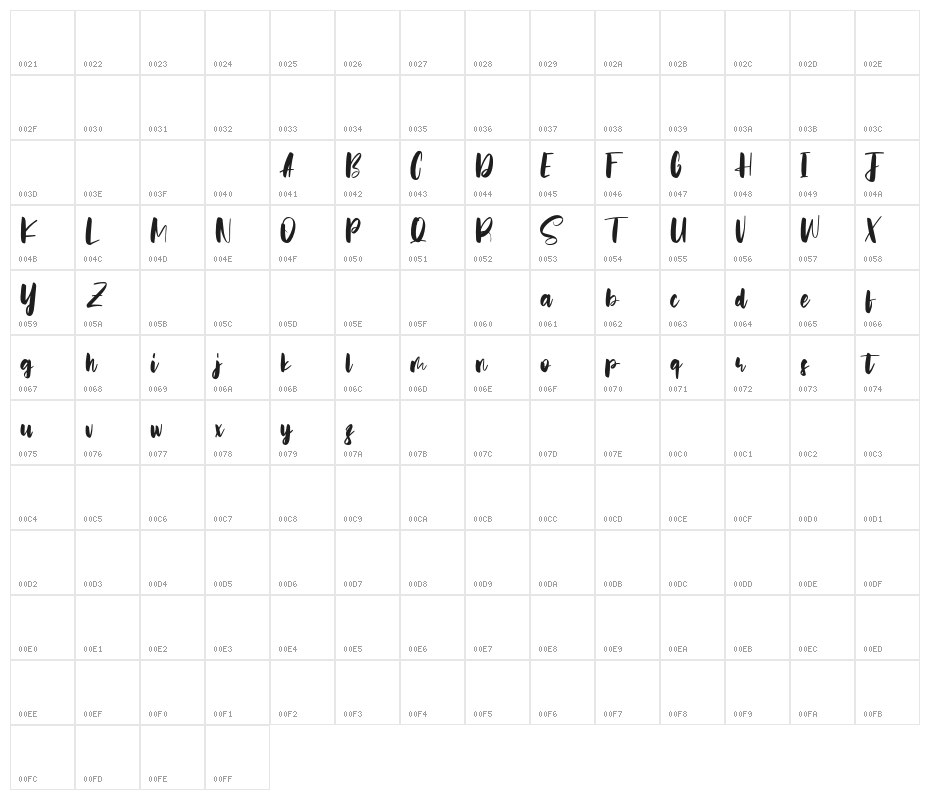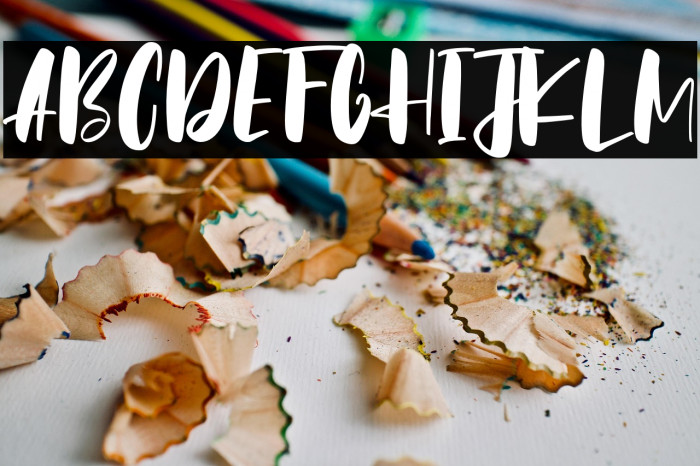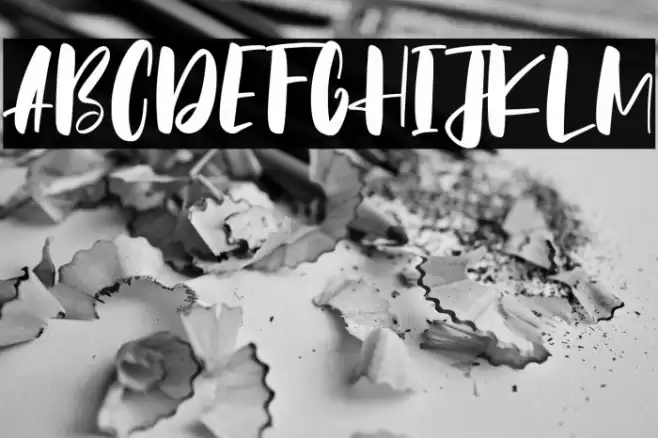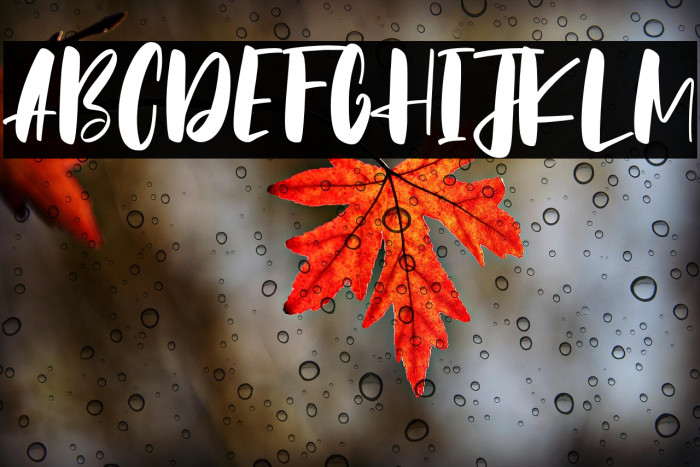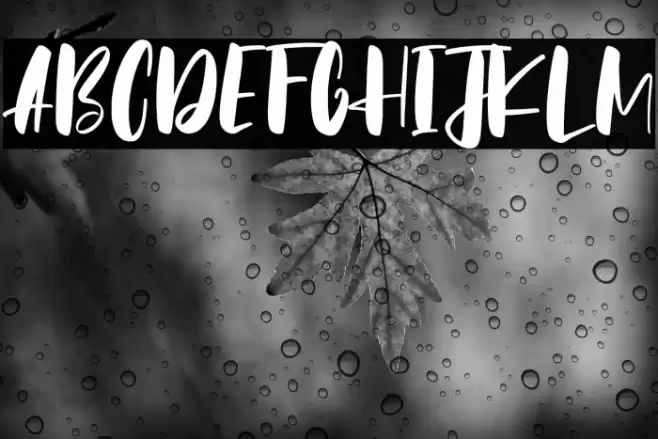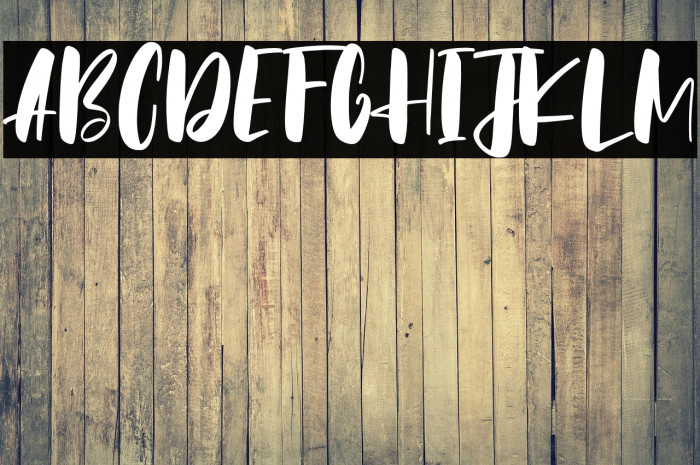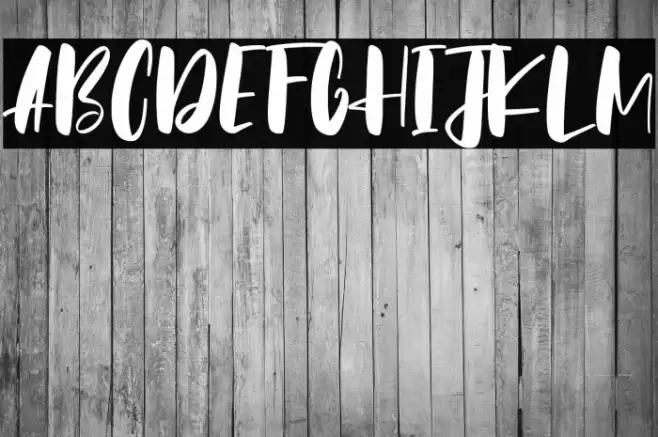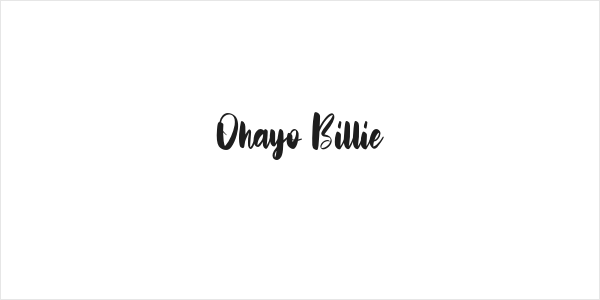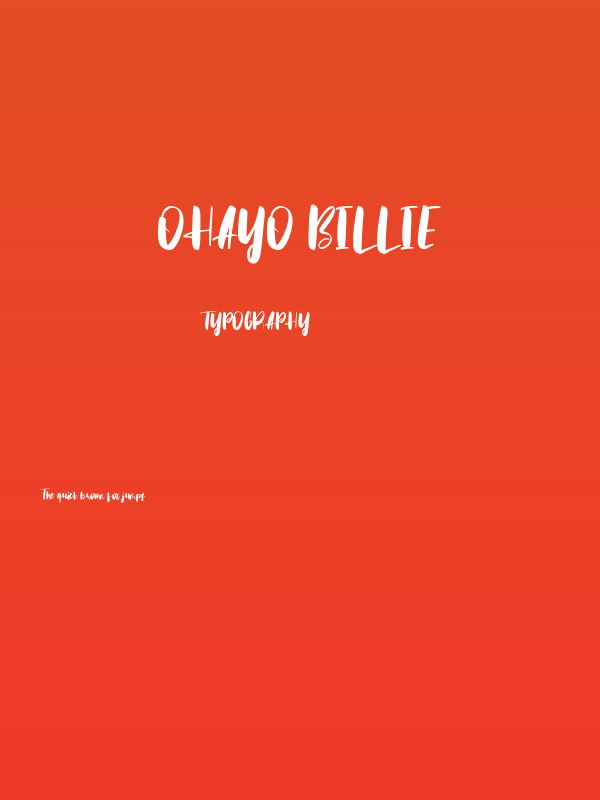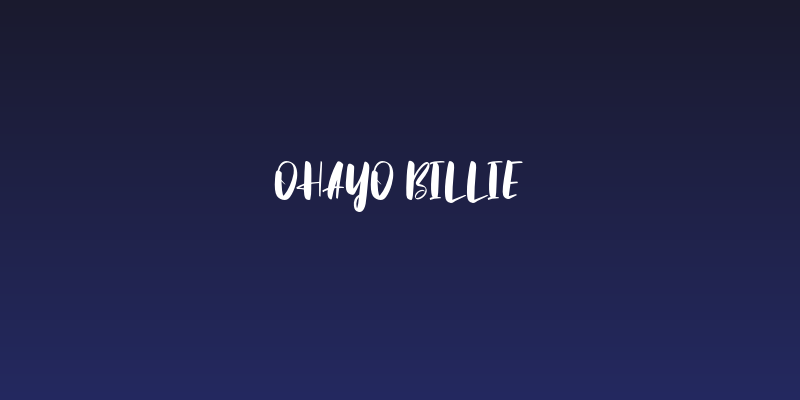
Ohayo Billie Font
Ohayo Billie Description
This font features a bold and expressive script style, characterized by its fluid and dynamic strokes. The uppercase letters are particularly striking, with a playful and energetic flair that adds a sense of movement to the text. The lowercase letters maintain this lively aesthetic, offering a harmonious blend of curves and loops. The overall design is modern and artistic, making it suitable for creative and eye-catching projects. Its bold weight and high contrast in stroke thickness enhance its visibility and impact, making it ideal for headlines and branding purposes.